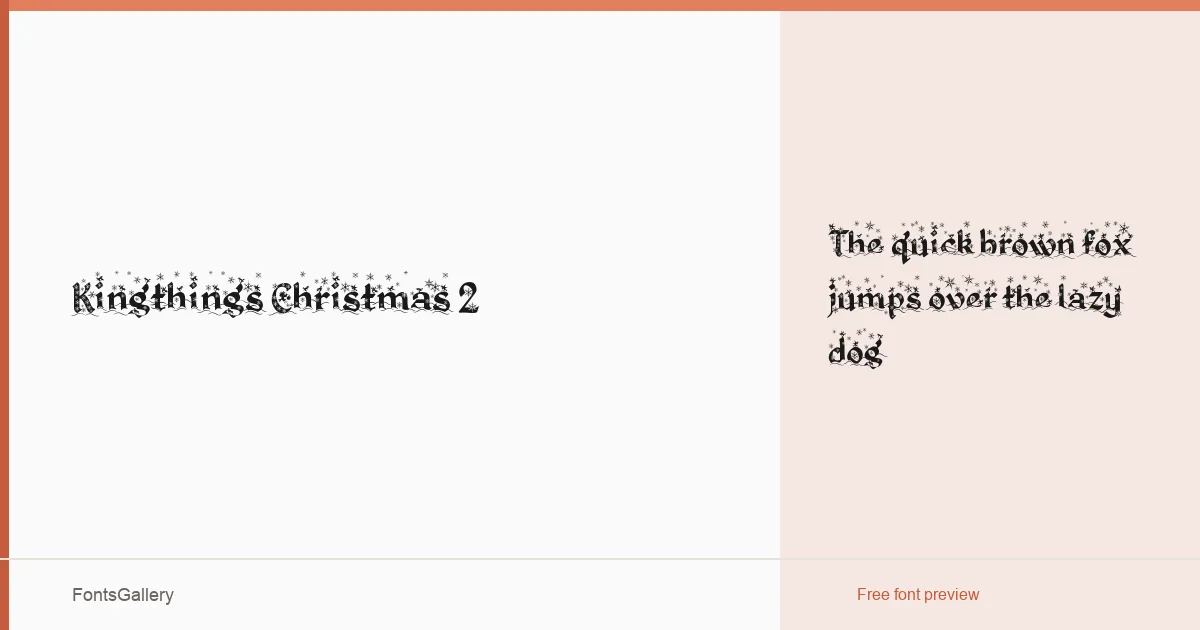
About Kingthings Christmas 2 Font
Kingthings Christmas 2 is a decorative typeface created by Kevin King, available through Kingthings Fonts at www.Kingthingsfonts.co.uk. Designed in 2007 and updated in 2009, this font brings a festive and expressive character to seasonal and celebratory design work. Its decorative nature makes it an instantly recognizable choice for holiday-themed projects.
The letterforms of Kingthings Christmas 2 embody a playful and whimsical spirit, layered with a vintage and rustic charm that evokes traditional holiday warmth. Each character carries an organic, hand-crafted quality that feels both nostalgic and full of personality. The decorative styling ensures it commands attention while maintaining a sense of lighthearted festivity.
This font is ideally suited for posters, greeting cards, invitation cards, social media graphics, and T-shirt designs where a bold, celebratory aesthetic is desired. Its whimsical decorative style makes it particularly effective for seasonal campaigns and holiday branding. For a balanced typographic composition, Kingthings Christmas 2 pairs well with the clean neutrality of Helvetica or the complementary character of Aresink.